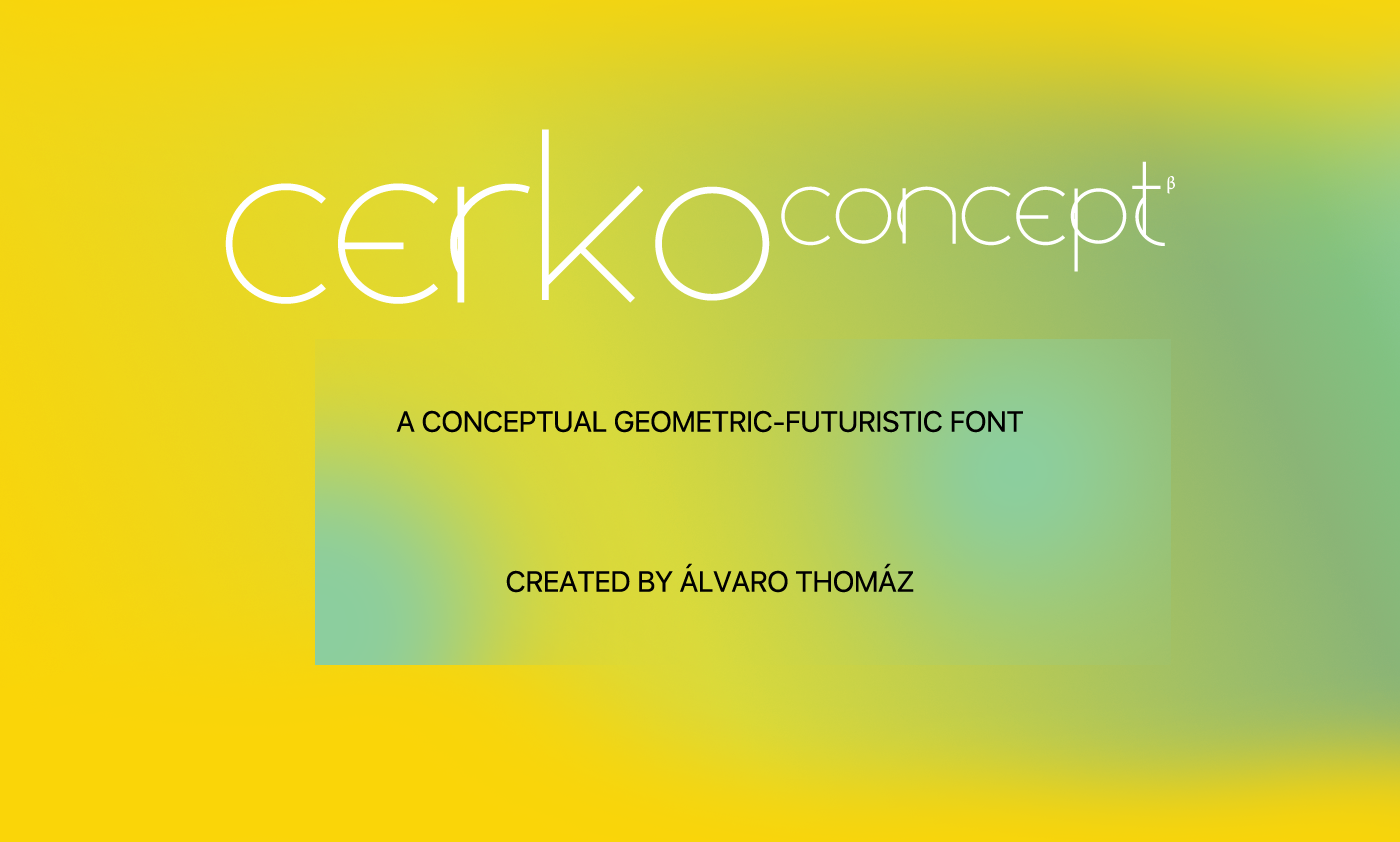
To create Cerko, multiple lines of concept where traced. the primary objective was to create a futuristic font inspired on geometric materials and on contemporary architecture. We introduce you to Cerko, an unique concept font made for titles, we think you might love it.
Only lowercase glyphs available for now. - this font was first created for title purpose - but don't worry, we're working on this already.